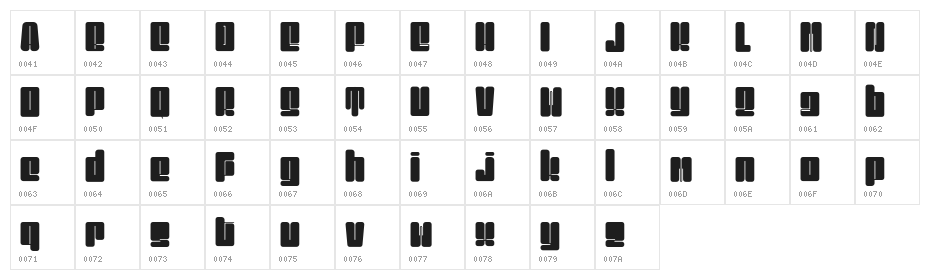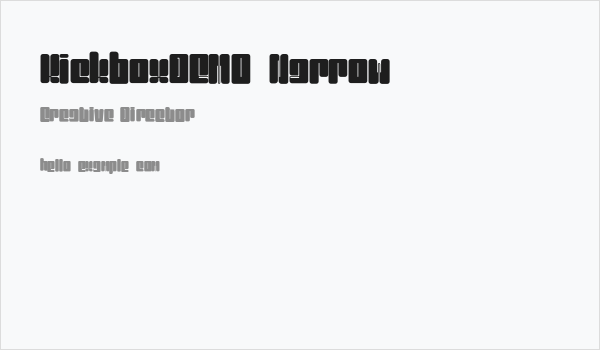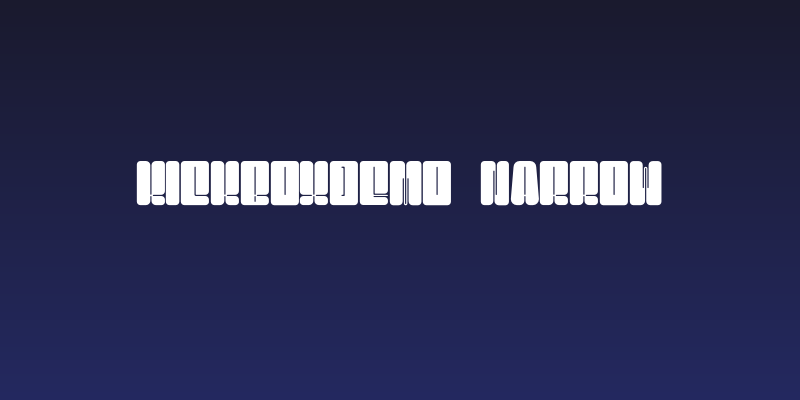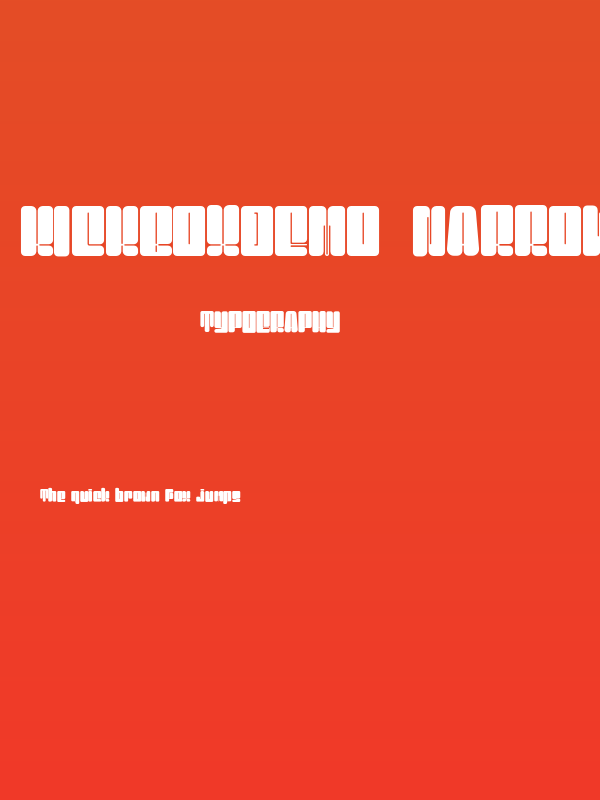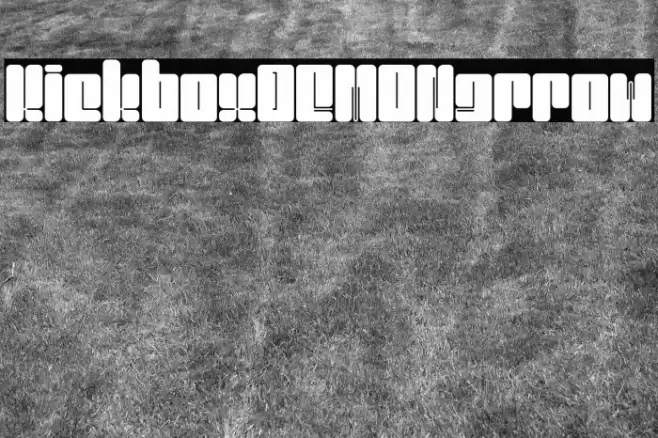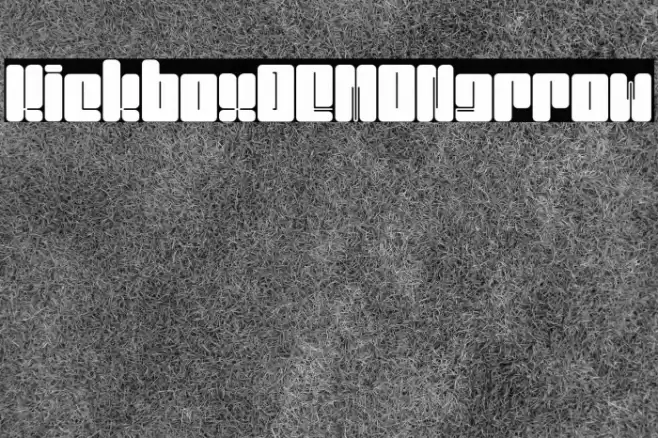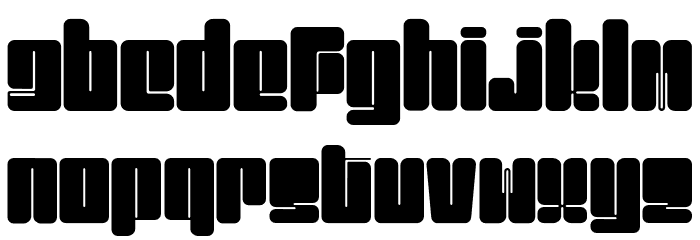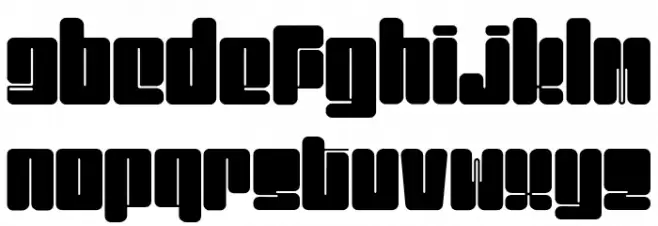
KickboxDEMO-Narrow Font
KickboxDEMO-Narrow Description
This font features a bold and modern design with a distinctly geometric and blocky appearance. The characters are constructed with thick, uniform strokes, giving it a strong and impactful presence. The style is highly decorative, with a futuristic and industrial feel. Each letter is crafted with precision, maintaining a consistent height and width, which contributes to its cohesive look. The font's unique design elements, such as the rounded edges and enclosed spaces, add a touch of creativity and make it stand out. It is well-suited for projects that require a bold statement and can effectively capture attention.
| Proposed Projects | Ideal for branding, posters, headlines, and any design requiring a strong visual impact. |